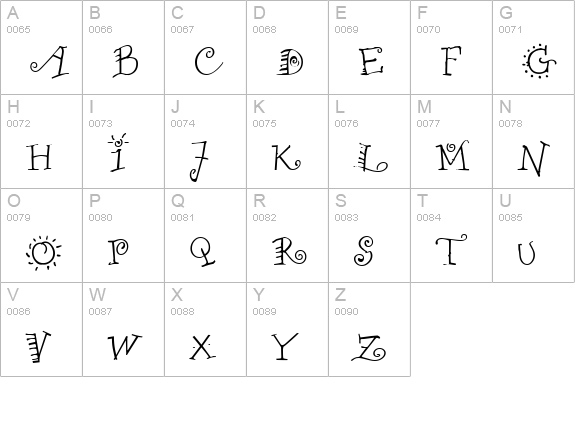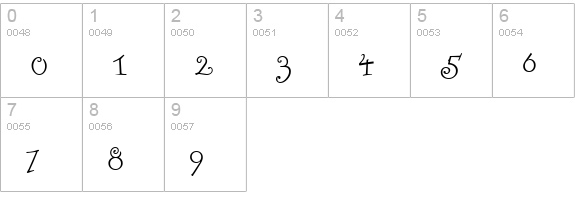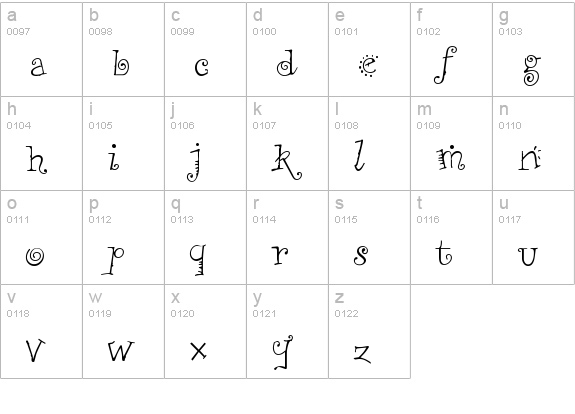
Funstuff Regular is the standard, neutral variant in the Funstuff typeface family \xE2\x80\x94 well suited to general body text, paragraphs, and standard typographic work.
Funstuff Regular font is a playful and whimsical typeface that is perfect for adding a touch of fun to your projects. With its smooth curves and friendly appearance, this font is sure to bring a smile to your audience. Whether you are designing a birthday invitation, a party flyer, or a children's book, Funstuff Regular is the ideal choice to convey a sense of joy and lightheartedness. The best part? Funstuff Regular font is available for free download at FontsMarket.com. Simply visit the website and start using this delightful font in your creative endeavors today. Let the playful charm of Funstuff Regular bring a touch of fun to your designs and captivate your audience with its cheerful and inviting style.